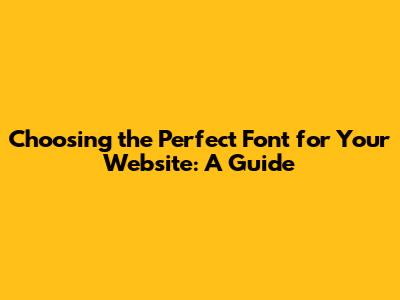
Choosing the right font for your website is crucial for creating a positive user experience and reinforcing your brand identity. The typography you select impacts readability, accessibility, and the overall aesthetic appeal of your site. This comprehensive guide will walk you through the essential steps and considerations for selecting the perfect font that aligns with your brand and enhances user engagement. Let's dive in, guys, and make your website look awesome!
Understanding the Importance of Font Choice
The importance of font choice extends far beyond mere aesthetics; it significantly influences how visitors perceive and interact with your website. Selecting the right font can drastically improve readability, ensuring that your content is easily digestible and engaging for your audience. Imagine trying to read a novel written in an overly ornate or illegible font – frustrating, right? The same principle applies to your website. A clear, well-chosen font enhances the user experience, encouraging visitors to spend more time exploring your content. First impressions matter, and typography is often one of the first elements visitors notice. A professional, well-aligned font conveys credibility and attention to detail, immediately building trust with your audience. Conversely, a poorly chosen font can make your site appear unprofessional or outdated, potentially driving visitors away. Moreover, font choice plays a critical role in reinforcing your brand identity. Just like logos and color palettes, fonts can evoke specific emotions and associations. For instance, a sleek, modern sans-serif font might be perfect for a tech company, while a classic serif font could better suit a traditional law firm. Consistency in font usage across your website and marketing materials helps create a cohesive and recognizable brand image. Accessibility is another key consideration. Choosing fonts with adequate character spacing, appropriate sizing, and sufficient contrast ensures that your website is usable for individuals with visual impairments. Ignoring accessibility can exclude a significant portion of your audience and may even lead to legal issues. Therefore, thoughtful font selection is not just about aesthetics; it's about creating an inclusive and user-friendly online experience. Ultimately, the right font choice can improve user engagement, enhance brand credibility, and ensure accessibility, making it a vital component of effective web design.
Key Considerations When Selecting a Font
When selecting a font, several key considerations come into play to ensure your choice aligns with your website's purpose, audience, and overall design. Readability is paramount; a font should be easy to read across different screen sizes and devices. Consider the font's x-height (the height of lowercase letters), character spacing, and overall clarity. Test the font with various text sizes and ensure it remains legible. The font's personality should reflect your brand identity. Is your brand modern and minimalist, or classic and traditional? Choose a font that conveys the right message and evokes the desired emotions. For instance, a playful script font might suit a children's website, while a serious serif font might be more appropriate for a financial institution. Think about your target audience and their preferences. What fonts are they accustomed to seeing? What fonts resonate with their demographics? Tailoring your font choice to your audience can improve engagement and create a sense of familiarity. The technical aspects of font usage are also crucial. Consider web-safe fonts, which are universally supported across browsers and operating systems, or utilize web fonts, which are hosted online and can be easily embedded in your website. However, be mindful of the impact on page load speed, as using too many web fonts can slow down your site. Ensure the font you choose is accessible to all users, including those with visual impairments. Use sufficient contrast between the text and background colors, and avoid relying solely on color to convey information. Provide alternative text for images and consider using larger font sizes for improved readability. Finally, evaluate the font's versatility. Does it offer a variety of weights and styles (e.g., bold, italic, light) to accommodate different content types and design elements? A versatile font provides greater flexibility and ensures consistency across your website. By carefully considering these factors, you can select a font that not only looks great but also enhances the overall user experience and supports your brand objectives.
Exploring Font Types: Serif, Sans-Serif, and More
When diving into the world of fonts, it's essential to understand the different font types available and their unique characteristics. The two most common categories are serif and sans-serif fonts. Serif fonts are characterized by small decorative strokes, or serifs, at the end of each character. These fonts often convey a sense of tradition, authority, and sophistication. Common examples include Times New Roman, Garamond, and Georgia. Serif fonts are generally considered more readable in print and are often used for body text in books, newspapers, and magazines. On the other hand, sans-serif fonts lack these decorative strokes and have a cleaner, more modern appearance. Popular sans-serif fonts include Arial, Helvetica, and Open Sans. Sans-serif fonts are often preferred for digital displays due to their clarity and legibility on screens. They are commonly used for headings, navigation menus, and body text on websites. Beyond serif and sans-serif, there are other font types to consider, such as script fonts, display fonts, and monospace fonts. Script fonts mimic handwriting and can add a touch of elegance and personality to your design. However, they should be used sparingly, as they can be difficult to read in large blocks of text. Display fonts are designed for decorative purposes and are often used for headlines, logos, and other eye-catching elements. These fonts come in a wide variety of styles, from bold and playful to elegant and refined. Monospace fonts, where each character occupies the same amount of horizontal space, are often used for coding and technical documentation. Examples include Courier New and Consolas. When selecting a font type for your website, consider the overall tone and message you want to convey. Serif fonts can lend a sense of formality and trustworthiness, while sans-serif fonts can create a more contemporary and approachable feel. Experiment with different font types and combinations to find what works best for your brand and design aesthetic. Remember to prioritize readability and accessibility, and avoid using too many different font types on a single page.
Font Pairing: Creating Harmonious Combinations
Font pairing is an art that involves selecting two or more fonts that complement each other and create a visually harmonious design. Choosing the right font pairings can enhance readability, improve visual appeal, and reinforce your brand identity. The goal is to create a balance between contrast and harmony, ensuring that the fonts work together seamlessly. One common approach is to pair a serif font with a sans-serif font. This combination provides a visual contrast that can draw the reader's eye and create a sense of balance. For example, you might pair a serif font like Georgia for headings with a sans-serif font like Arial for body text. Another strategy is to use different weights and styles of the same font family. This approach creates a cohesive and unified look while still providing visual interest. For instance, you could use a bold weight for headings and a regular weight for body text, all within the same font family. When selecting font pairings, consider the personality of each font and how they complement each other. Do they convey a similar tone and message? Do they work well together visually? Experiment with different combinations and evaluate how they look on different devices and screen sizes. There are several online tools and resources available to help you find font pairings. Websites like FontPair and Google Fonts offer suggestions and examples of fonts that work well together. You can also use design software like Adobe Photoshop or Figma to experiment with different font combinations and see how they look in your design. Remember to limit the number of fonts you use on your website. Using too many different fonts can create a cluttered and confusing design. Stick to two or three fonts at most, and use them consistently throughout your site. Pay attention to the spacing between lines and characters, as this can significantly impact readability. Adjust the line height and letter spacing to ensure that the text is easy to read and visually appealing. By carefully considering these factors, you can create font pairings that enhance your website's design and improve the overall user experience.
Best Practices for Font Usage on the Web
Best practices for font usage on the web encompass a range of considerations, from readability and accessibility to performance and branding. Prioritize readability by selecting fonts that are easy to read across different devices and screen sizes. Consider the font's x-height, character spacing, and overall clarity. Test the font with various text sizes and ensure it remains legible. Use sufficient contrast between the text and background colors to improve readability, especially for users with visual impairments. Avoid using low-contrast color combinations, such as light gray text on a white background. Ensure your font choices are accessible to all users by providing alternative text for images and using larger font sizes for improved readability. Follow web accessibility guidelines (WCAG) to ensure your website is usable for individuals with disabilities. Optimize your fonts for performance by using web fonts efficiently. Web fonts can enhance your website's design, but they can also impact page load speed if not implemented correctly. Use font formats that are optimized for the web, such as WOFF and WOFF2, and consider using a Content Delivery Network (CDN) to host your fonts. Limit the number of web fonts you use on your website to minimize the impact on page load speed. Choose a maximum of two or three fonts and use them consistently throughout your site. Use CSS to control the appearance of your fonts, including font size, line height, letter spacing, and color. This allows you to maintain consistency across your website and easily update your font styles in the future. Consider using a font stack, which is a list of fallback fonts that are used if the primary font is not available. This ensures that your website will still display correctly even if the user's browser does not support your chosen font. Regularly test your website on different devices and browsers to ensure that your fonts are displaying correctly. Use browser developer tools to identify any font-related issues and optimize your font usage for performance. By following these best practices, you can ensure that your fonts enhance your website's design, improve readability, and provide a positive user experience.
Tools and Resources for Font Selection
Navigating the world of fonts can be overwhelming, but thankfully, numerous tools and resources are available to help you make informed decisions and streamline the selection process. Google Fonts is a popular and free resource offering a vast library of open-source fonts that can be easily integrated into your website. It provides a user-friendly interface to browse, preview, and download fonts, along with helpful information about font pairings and usage guidelines. Adobe Fonts (formerly Typekit) is a subscription-based service that offers a wide range of high-quality fonts from renowned foundries. It integrates seamlessly with Adobe Creative Cloud applications and provides advanced font management features. FontPair is a website dedicated to helping you find harmonious font pairings. It offers a curated collection of font combinations that have been carefully selected by designers and typographers. FontJoy is a tool that uses artificial intelligence to generate font pairings based on your preferences. You can specify the type of font you're looking for (e.g., serif, sans-serif) and FontJoy will suggest combinations that work well together. MyFonts is a marketplace where you can purchase fonts from independent foundries and designers. It offers a vast selection of unique and creative fonts that you won't find anywhere else. Typewolf is a website that showcases examples of typography in web design. It provides inspiration and insights into how different fonts are being used in real-world projects. WhatFont is a browser extension that allows you to identify the fonts used on any website. Simply hover over the text and WhatFont will display the font name, size, and other relevant information. FontReach is a tool that analyzes the font usage of the top million websites. It provides insights into the most popular fonts and trends in web typography. These tools and resources can save you time and effort in the font selection process and help you create a visually appealing and effective website.
Selecting the perfect font for your website is a crucial step in creating a positive user experience and reinforcing your brand identity. By understanding the importance of font choice, considering key factors like readability and accessibility, exploring different font types, and utilizing helpful tools and resources, you can make informed decisions that enhance your website's design and effectiveness. Remember to prioritize readability, ensure accessibility, optimize for performance, and maintain consistency throughout your site. With careful planning and attention to detail, you can choose fonts that not only look great but also support your brand objectives and engage your audience. So go ahead, guys, experiment with different font combinations and create a website that stands out from the crowd!